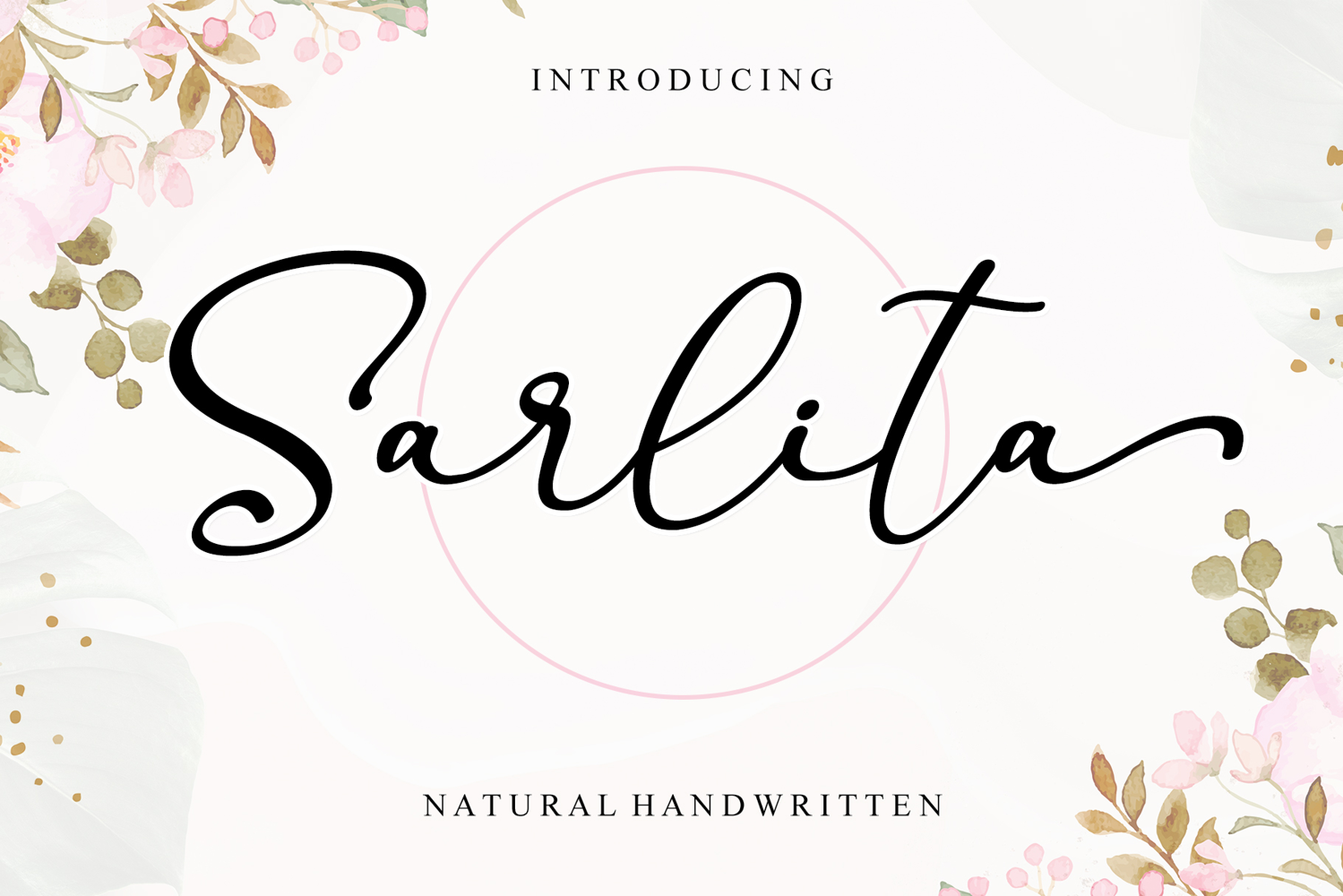
Beautiful Handwritten
Sarlita is a stylish and incredibly elegant script font. It looks stunning on wedding invitations, thank you cards, quotes, greeting cards, logos, business cards and every other design which needs a handwritten touch.